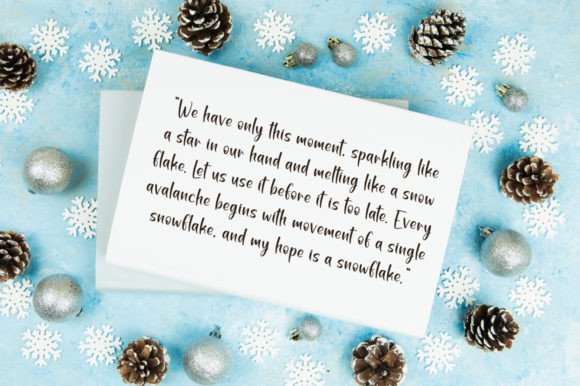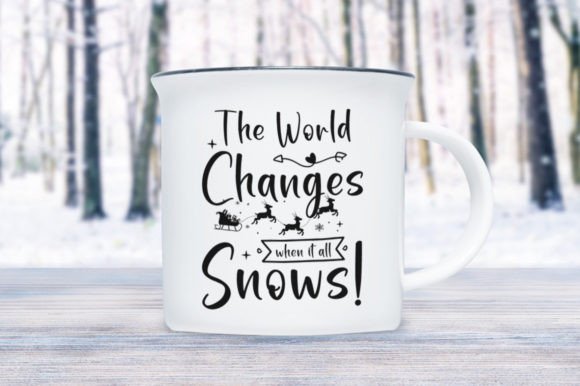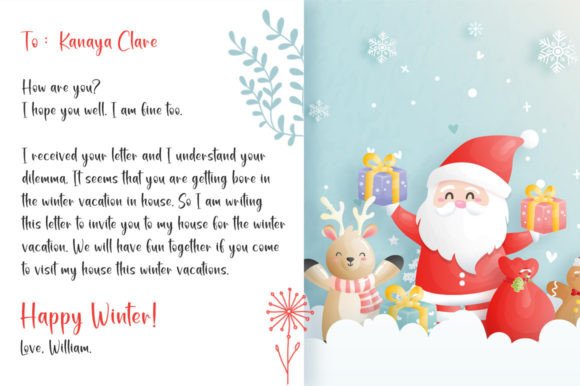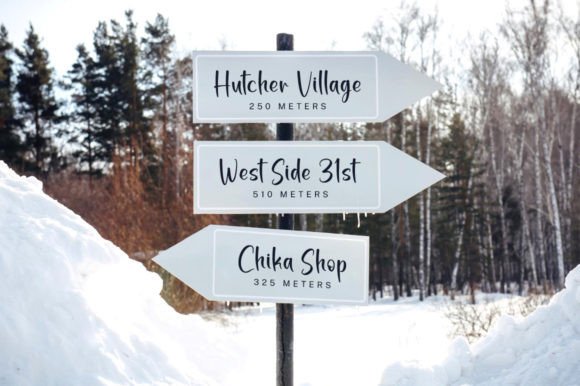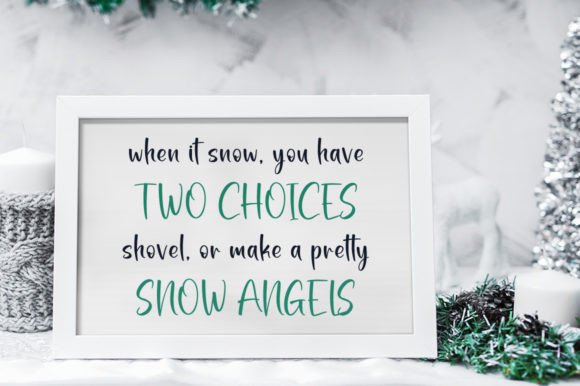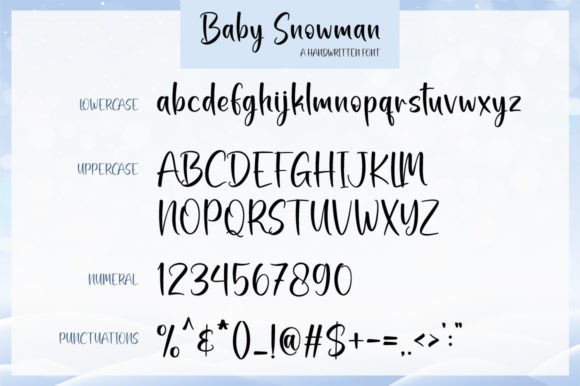
The Magic of Handwritten Fonts: Unwrapping the Baby Snowman Font
As a designer, have you ever stumbled upon a moment of pure creative bliss? For me, it was while brainstorming ideas for a winter-themed logo – the snowflakes were falling gently outside, and I was sipping hot chocolate by the fireplace. It was the perfect setting to get lost in the world of typography. That’s when I discovered the Baby Snowman Font, and my heart skipped a beat.
The Baby Snowman Font is a charming, handwritten font that exudes warmth and nostalgia. It’s perfect for crafting eye-catching logos, branding, and quotes that evoke a sense of timelessness and elegance. Whether you’re working on a project for a children’s book or a winter wonderland-themed event, this font is sure to add a touch of magic to your design.
As a designer, you know how valuable a great font can be in elevating your work. The Baby Snowman Font is no exception – its unique, handwritten style makes it a standout choice for any project that requires a touch of whimsy and personality.
Baby Snowman Font Key Features
- Character Set: This font includes a wide range of characters, including uppercase and lowercase letters, numbers, punctuation, and special characters, as well as decorative elements like snowflakes and ornaments.
- Unique Characteristics: This font features a playful, whimsical design with a mix of rounded and pointed shapes, giving it a distinctive and eye-catching look.
Designer Review: Baby Snowman Font
Overall, I was excited to dive into the Baby Snowman Font, but my experience was a mix of delight and frustration.
- The Baby Snowman Font is indeed adorable and perfect for winter-themed projects or children’s products.
- The font’s unique design elements, such as the snowman’s face and scarf, add a playful touch to any text.
- The font is available in a range of sizes and styles, making it versatile for various design applications.
- The font may not be ideal for serious or professional projects due to its playful nature.
- The design elements can be distracting if used excessively, so it’s essential to balance their use with other design elements.
- The font’s availability in only a few styles may limit its use in complex design projects.
In conclusion, the Baby Snowman Font is a fun and unique addition to any designer’s toolkit, but its limitations should be considered carefully. It’s perfect for projects that require a playful touch, but may not be suitable for more serious designs.
Common Use Cases for Baby Snowman Font
The Baby Snowman Font is ideal for winter-themed designs, such as holiday cards, invitations, and party decorations. It’s also great for children’s projects, like birthday party invitations and activity sheets. Use the font to add a playful and whimsical touch to your designs.